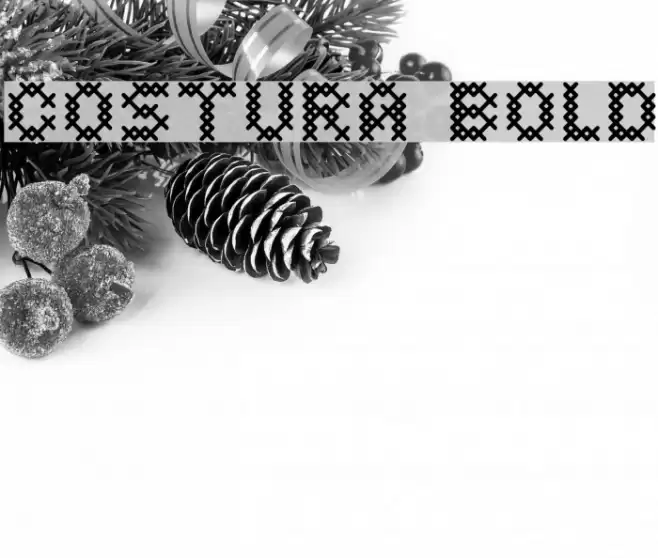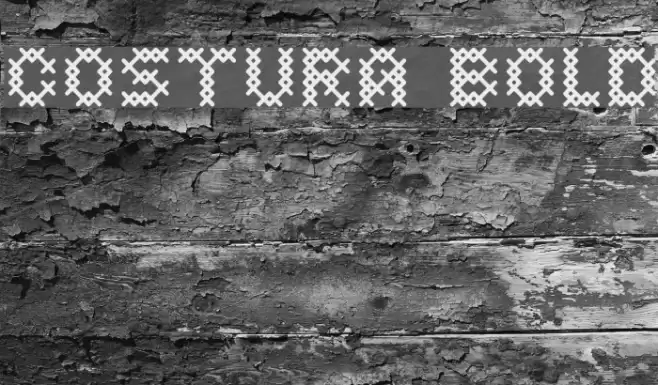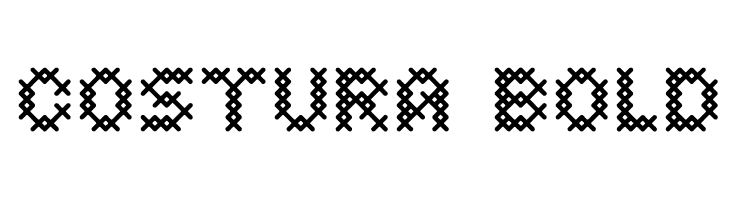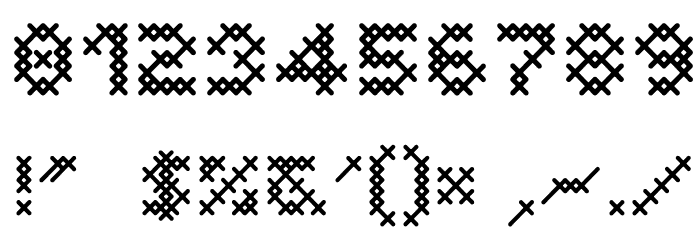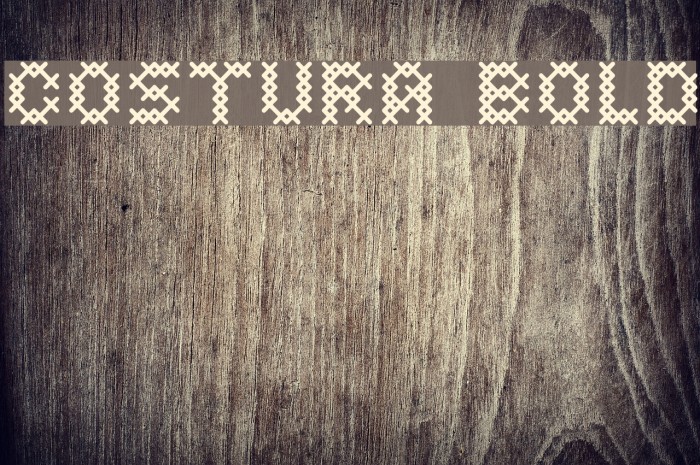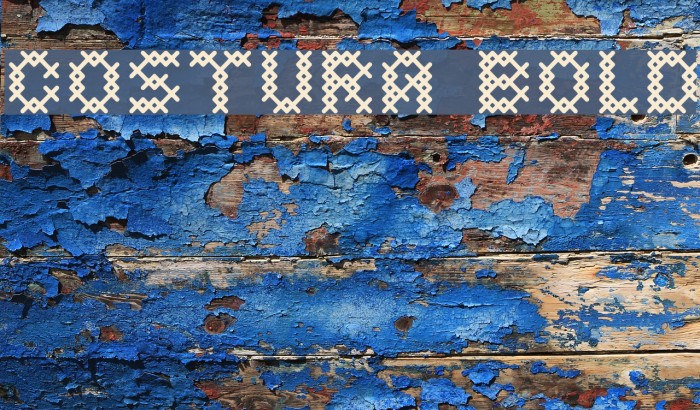
Costura Bold Font
Costura Bold Description
This font features a unique cross-stitch pattern that mimics the appearance of embroidery. Each character is constructed with a series of intersecting lines that create a textured, handcrafted look. The design is consistent across uppercase, lowercase, numbers, and special characters, maintaining a cohesive aesthetic. The font's distinctive style is reminiscent of traditional needlework, making it ideal for projects that require a touch of nostalgia or a crafty feel. Its bold appearance ensures readability while adding a decorative element to any text.
A bold, cross-stitch patterned font with a handcrafted, embroidered look from Decorative fonts.
- Proposed Projects: Ideal for craft-themed projects, DIY blogs, textile branding, and decorative headings.
- Use Case: Headlines, Logos, Decorative text